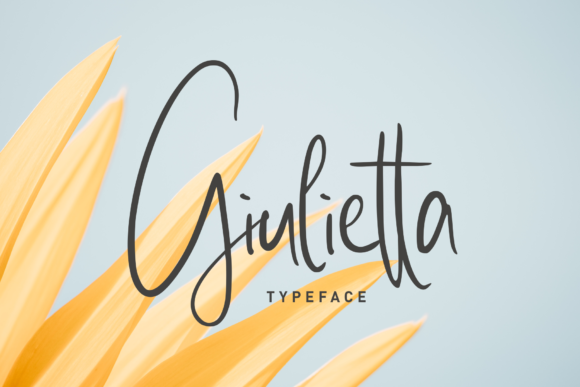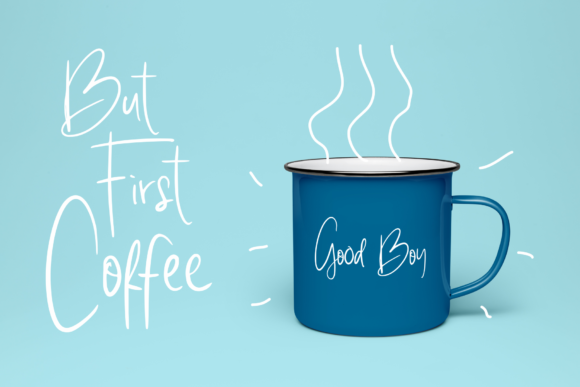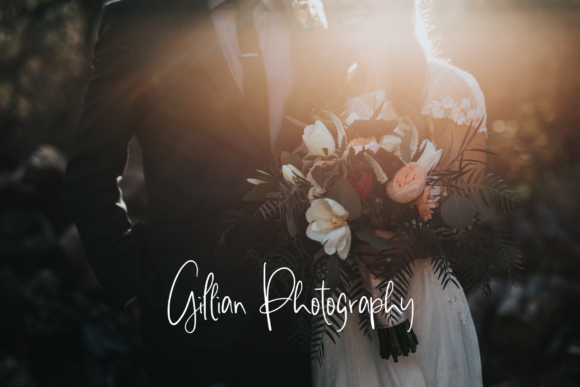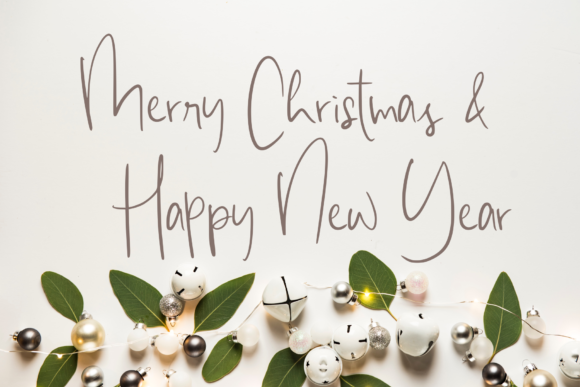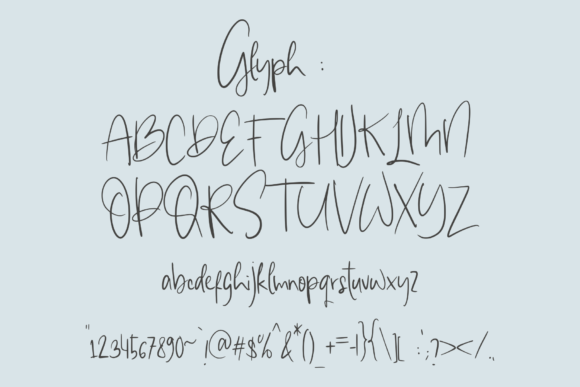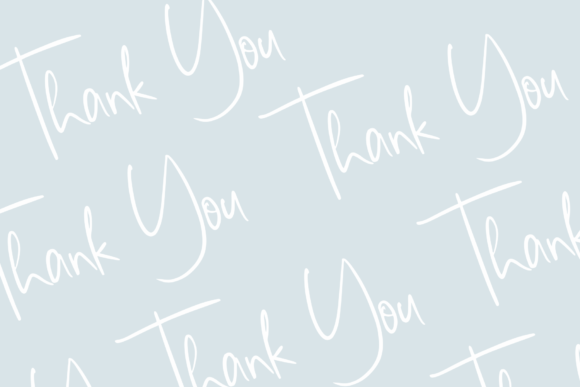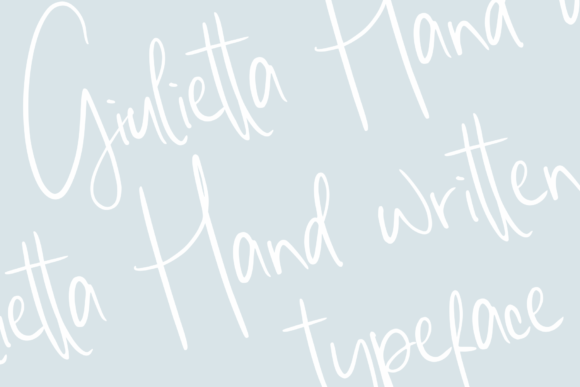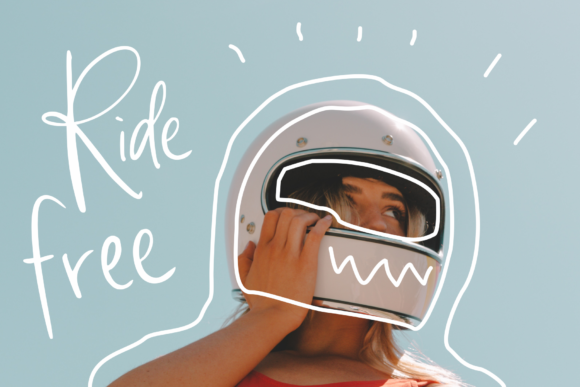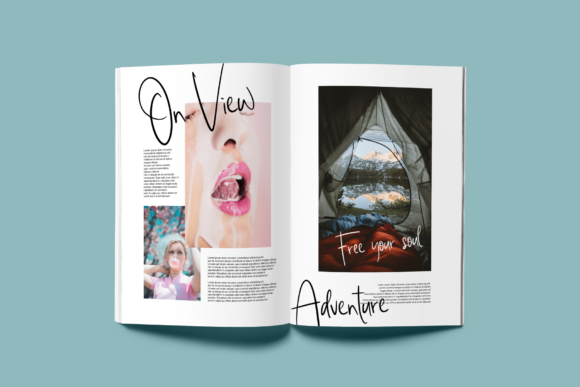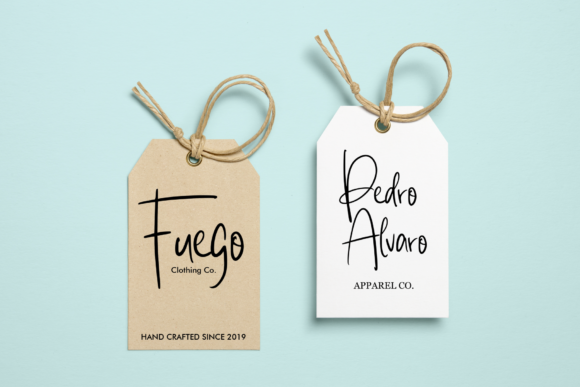
HomeScript FontsGiulietta Font Script Fonts Giulietta Font FacebookXPinterestWhatsApp Giulietta Font Poster 2 Giulietta Font Poster 3 Giulietta Font Poster 4 Giulietta Font Poster 5 Giulietta Font Poster 6 Giulietta Font Poster 7 Giulietta Font Poster 8 Giulietta Font Poster 9 Giulietta Font Poster 10 Giulietta Font Poster 11 Giulietta Font Poster 12 Giulietta Font Poster 13 Giulietta Font Poster 14 About Giulietta Font Giulietta fuses generous curves and smooth letters into one truly original script. DOWNLOAD ON CREATIVE FABRICAThis font is sold and delivered by Creative Fabrica. Font Canyon may earn a commission if you buy through this link. People also explored Endorse Red Swiss Font Amerun Font Smoothline Script Font Rodemond Font Beautiful Plants Font Caselina Font Danielle Signature Font Aizawa Font 337 0 TagsGiulietta Font Previous articleThe Essential FontNext articleDuythy Font LEAVE A REPLY Cancel reply Comment: Please enter your comment! Name:* Please enter your name here Email:* You have entered an incorrect email address! Please enter your email address here Website: Save my name, email, and website in this browser for the next time I comment. Personal Use Free Sellena Brush Font Personal Use Free Read more about this font Wallabys Junior Personal Use Free Read more about this font Mika Personal Use Free Read more about this font Playground Clip Art Personal Use Free Read more about this font BLOG Transform Your Website: Elevate Your Typography with 7 Best Web Font Generators Are you ready to transform your website's typography from ordinary to extraordinary? Great! Today, we're diving into the world of web font generators, which... Top 10 Handwritten Fonts That Elevate Your Designs Top 7 Google Fonts Alternatives for Faster and Privacy-Friendly Web Design (2025) Best Fonts for T-Shirt Design – Top 2025 Picks